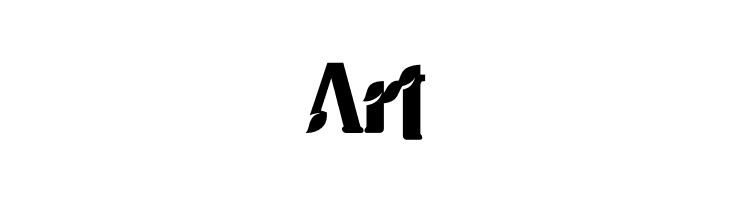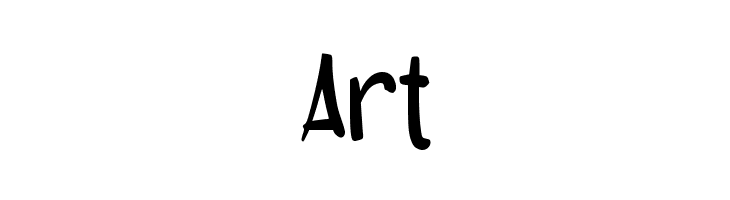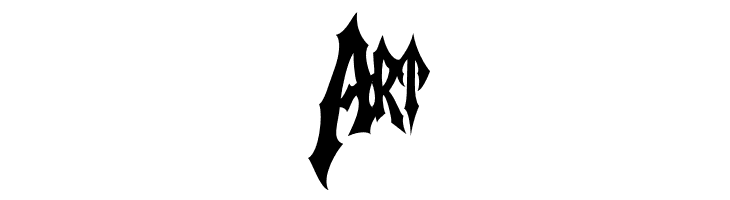
A whimsical, playful font with flowing curves and a hand-drawn appearance.
An elegant and ornate script font with flowing, decorative letterforms.
A bold, dynamic font with thick strokes and a modern-vintage flair.
A bold, rugged, and handcrafted font with a playful, energetic vibe.
A playful, handwritten font with bold, consistent strokes and a whimsical style.
A sleek, italicized font with elongated, narrow characters for a modern look.
A playful, rounded font with tall, narrow letters and smooth curves.
A playful, tall, and narrow font with consistent stroke width.
A bold, spiky font with a tribal and fantasy-inspired design.
A bold, gothic-inspired font with sharp, angular edges and dramatic strokes.